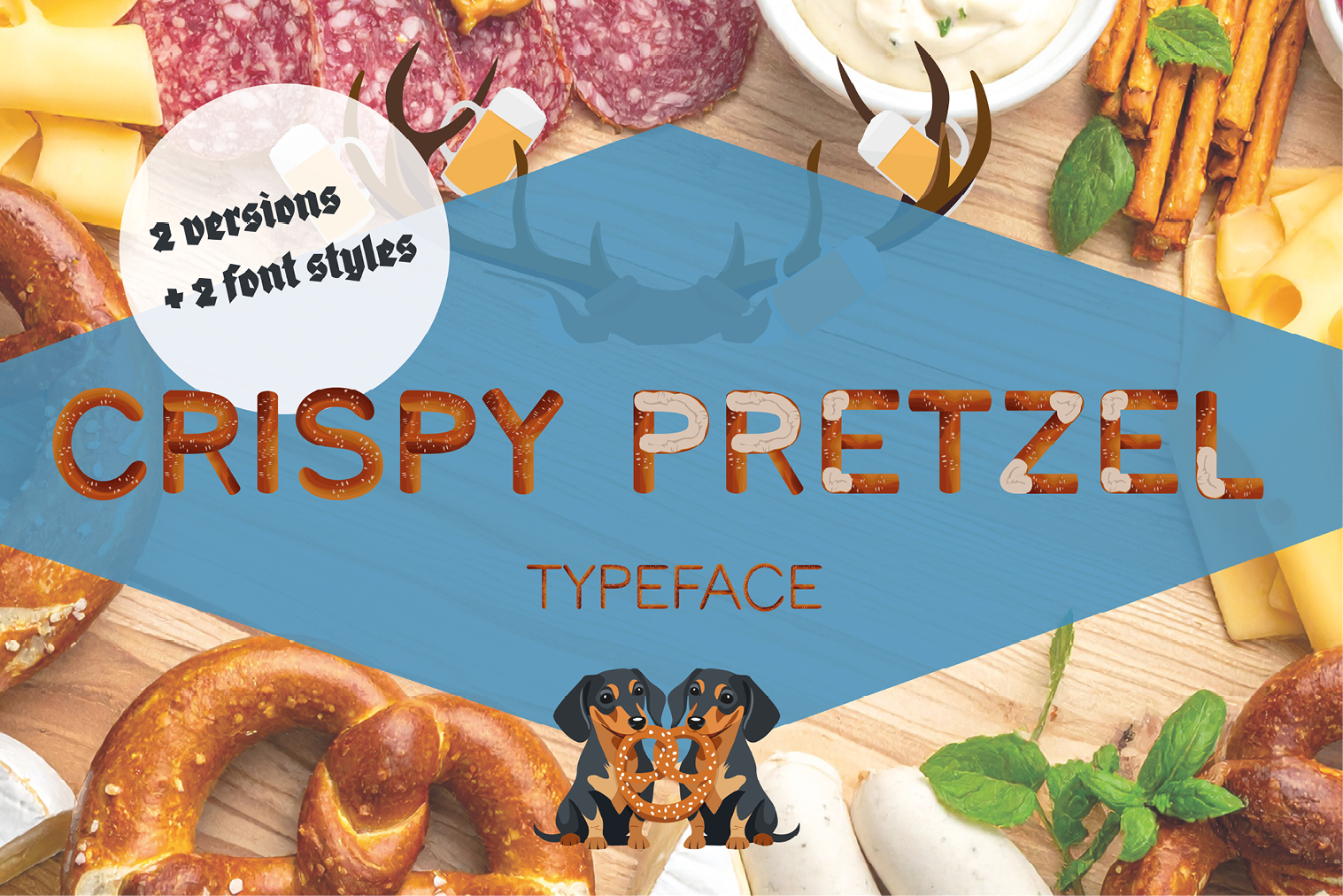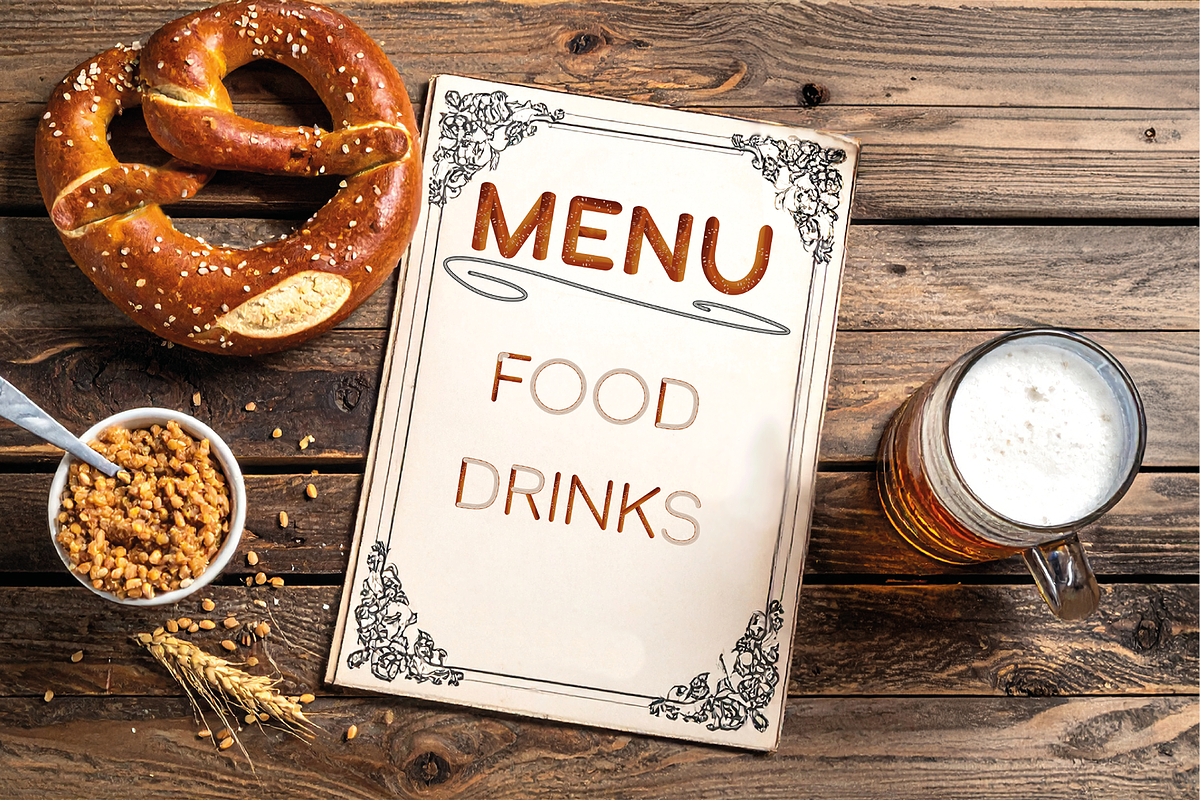
Rustic Bavarian Beer Festival Font
Introducing Crispy Pretzel – a bold, rustic, and handcrafted display font that brings a warm, cozy, and traditional feel to your designs. With its unique, textured strokes and organic shapes, this font captures the authentic charm of local bakeries, alpine taverns, and classic autumn festivals. This isn't just a single font; it is a smart, multi-layered typeface system designed to create stunning, two-tone typography effortlessly. By combining the Base Layer (Glazed Outside) and the Inner Layer (Soft Pretzel Inside), you can easily mix and match colors (like rich glaze-brown and warm dough-beige) for an authentic, delicious 3D pretzel look without any manual vector tracing!
It is the perfect typeface for designers looking to inject character, heritage, and a welcoming, down-to-earth vibe into food-related branding or seasonal event designs.
Food & Beverage Branding: Menu cards, bakery logos, craft beer labels, food truck signage, and coffee shop packaging.
Seasonal Events: Oktoberfest invitations, autumn festival flyers, farmers market posters, and traditional German or Bavarian-themed designs.
Merchandise & Apparel: Rustic t-shirt designs, tote bags, kitchenware branding, and cozy home decor prints.
Editorial & Social Media: Bold recipe book headings, food blogging graphics, Pinterest pins, and lifestyle branding.
💡 Design Pro-Tip:
This font pairs beautifully with clean, simple sans-serif sub-headlines. Use it at medium to large sizes to let the handcrafted, organic details truly stand out.